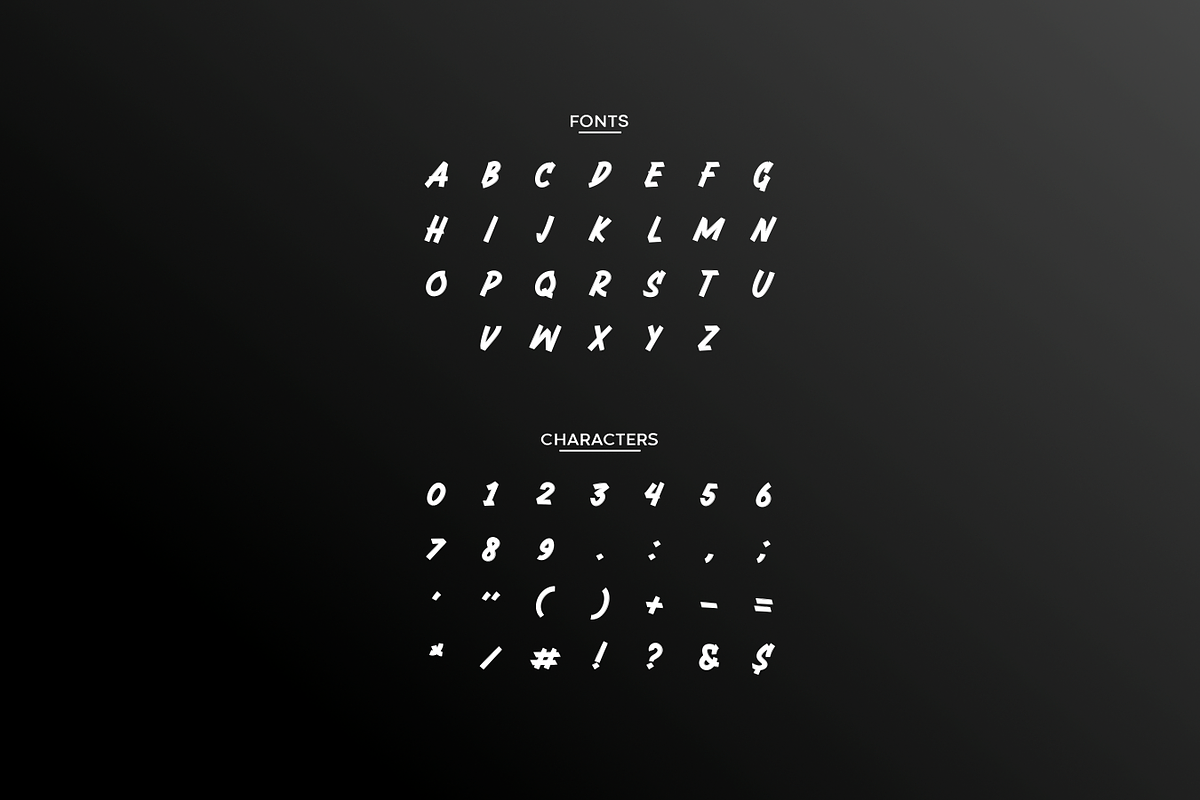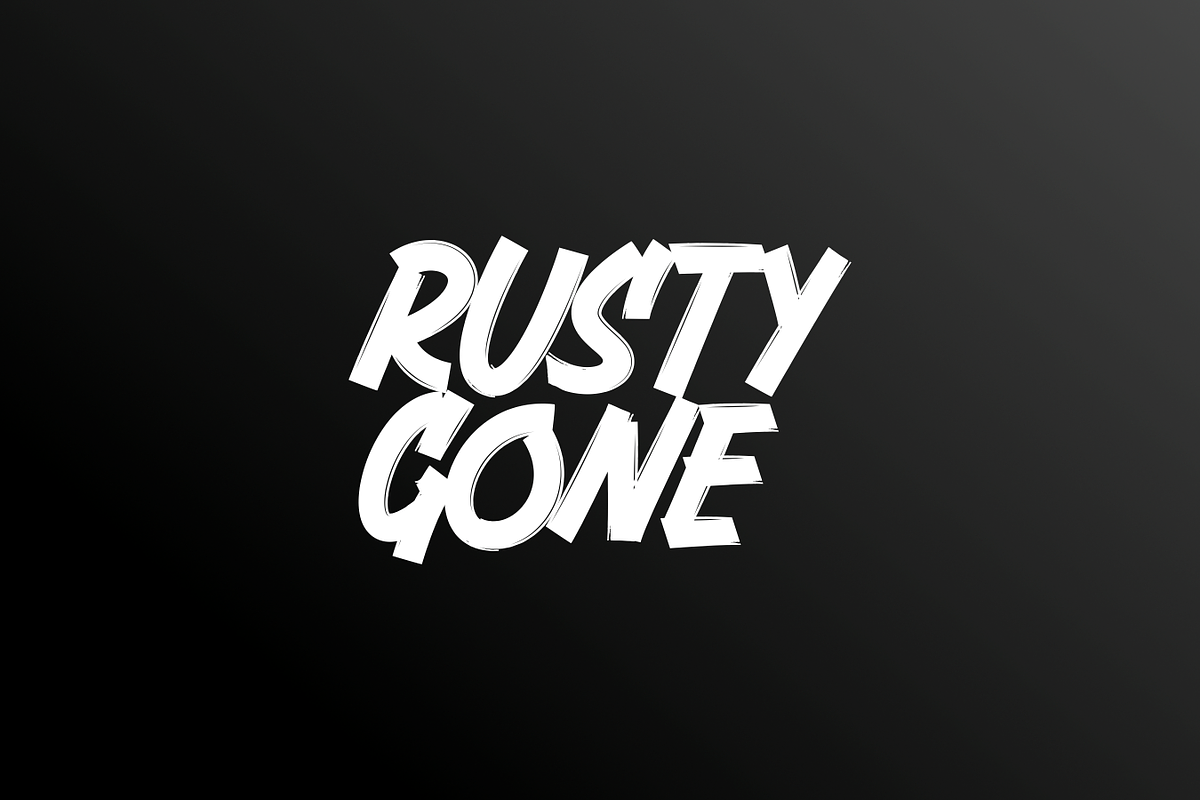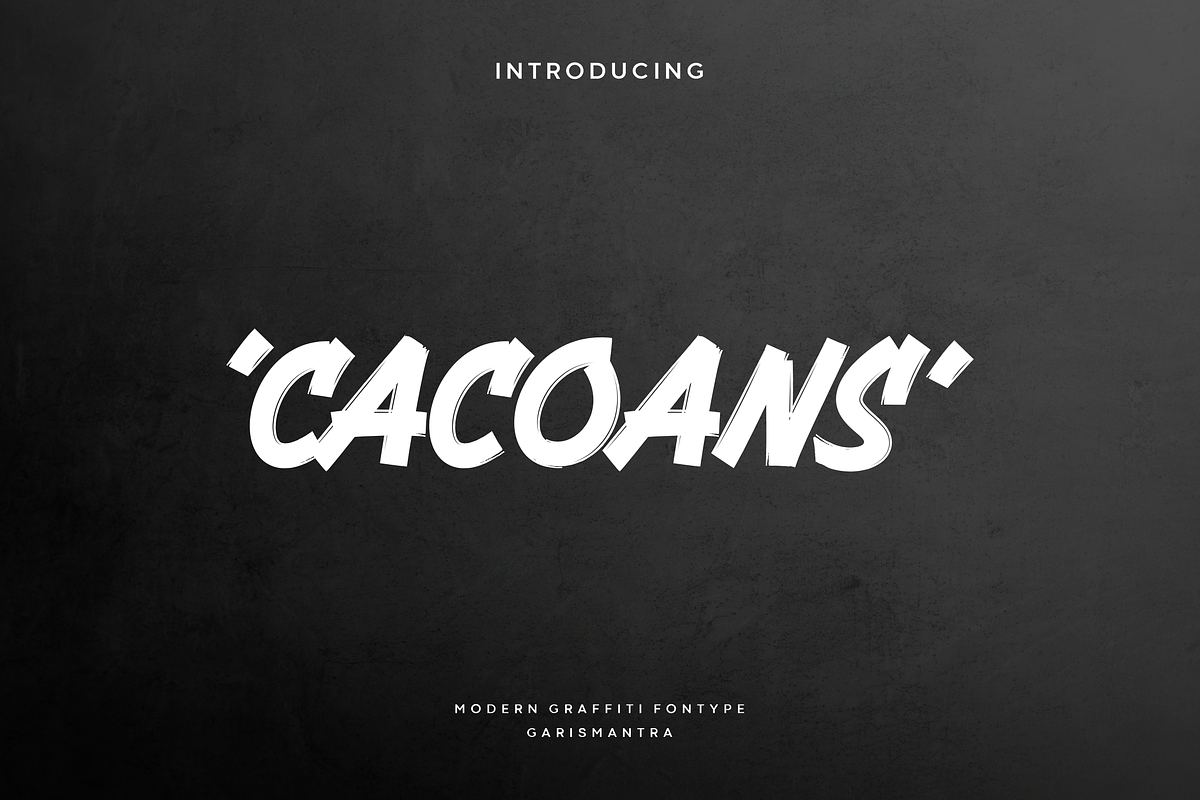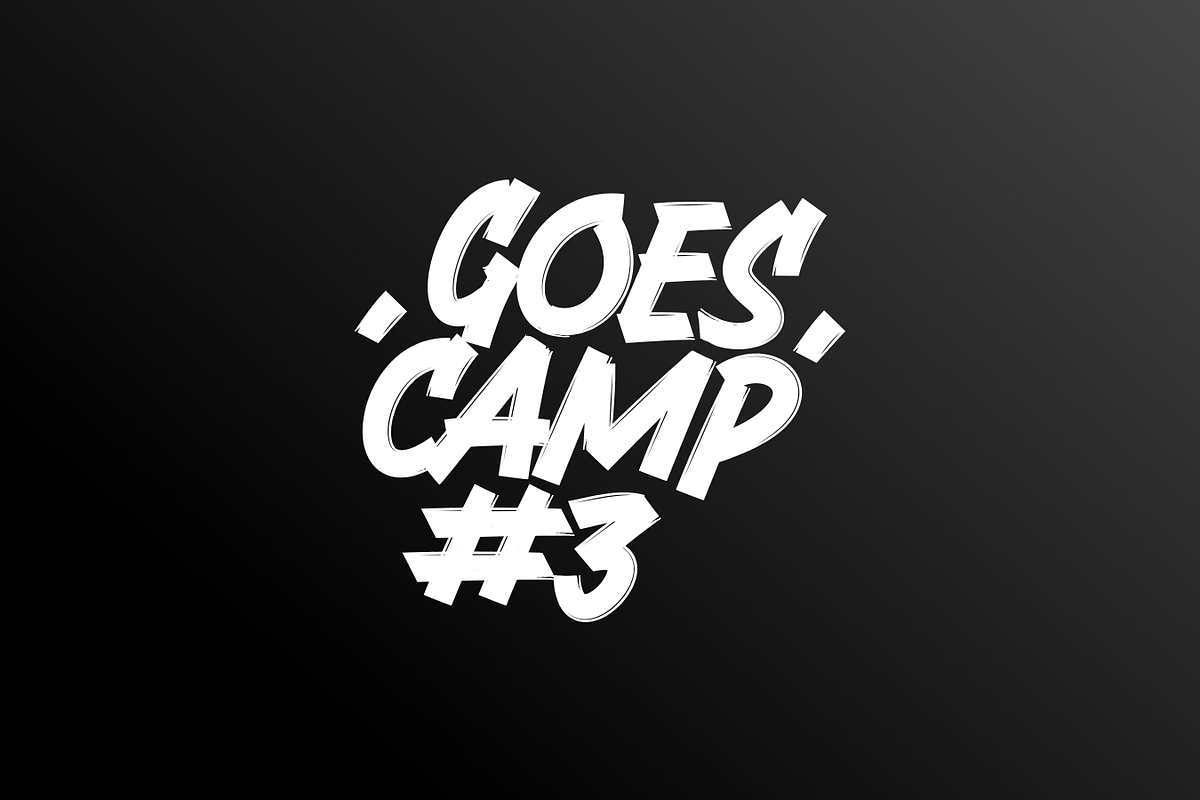
Cacoans
Cacoans is a font that inspired by the marker typeface and grafiti style. Suitable for headline, poster design, t-shirt cd cover album or something that need grafiti style.